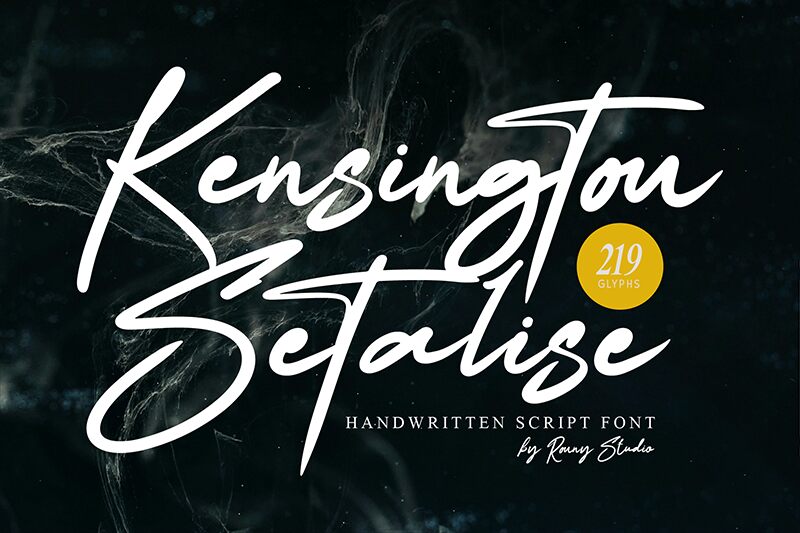
Kensington Setalise
Kensington Setalise font, a creation by Ronny Studio, is an elegant handwritten script of flowing letters that exhibit a modern aesthetic. Exclusively designed with casual sophistication in mind, this font captivates viewers with subtle curves and easily readable characters. If you’re looking for a great expressive font that balances perfectly between formal and informal appearances, then Kensington Setalise is the answer.
Use this free handwritten font on book covers, social media posts, packaging designs or labels of coffee houses and restaurants. Besides food-related purposes, it will look stunning on greeting cards or special occasion invitations like weddings and anniversaries. Lastly, consider using the typeface in poster designs!